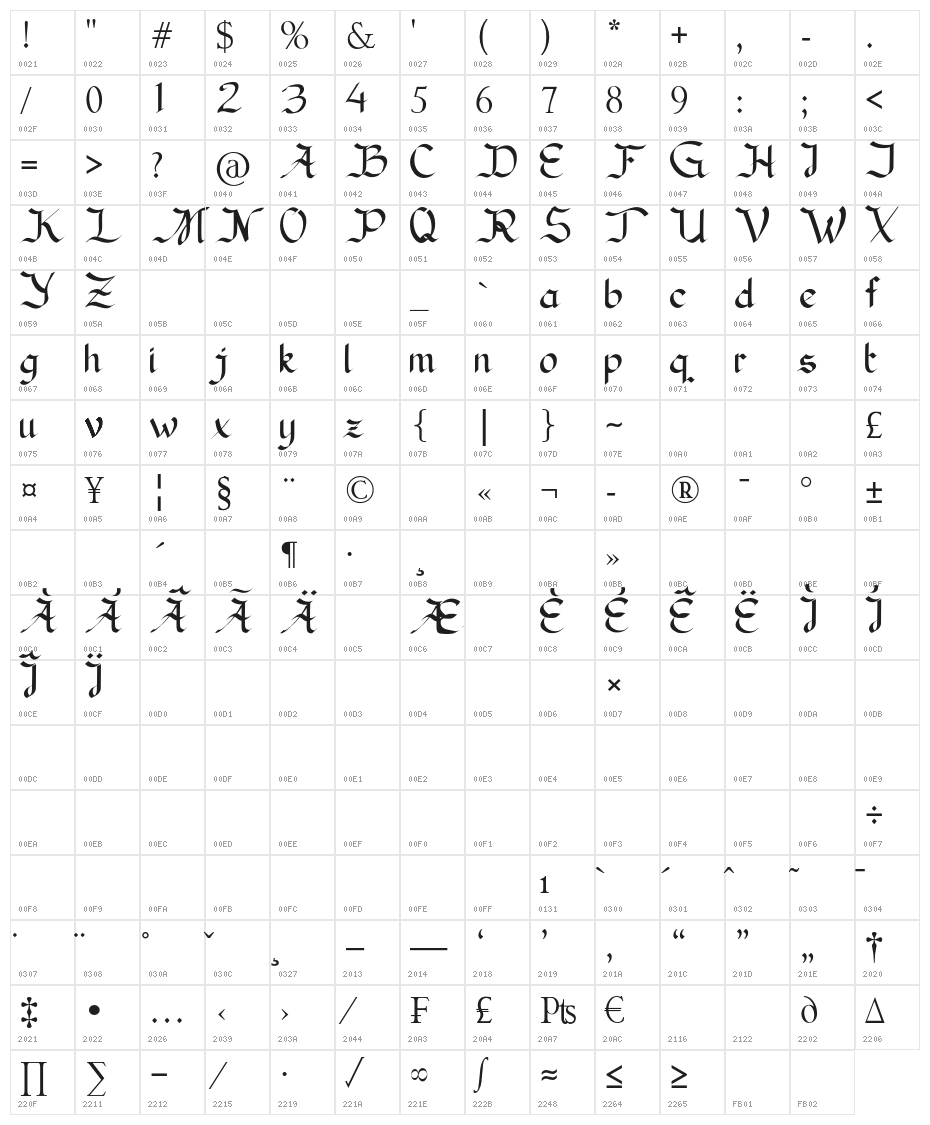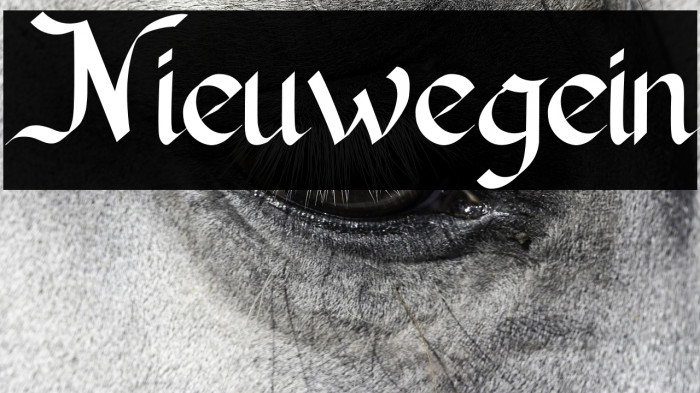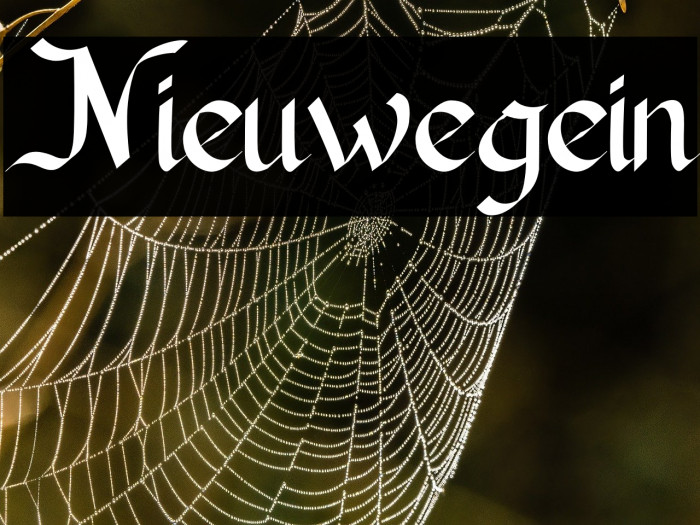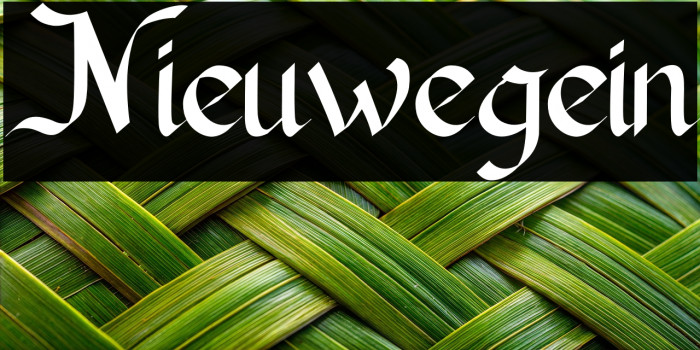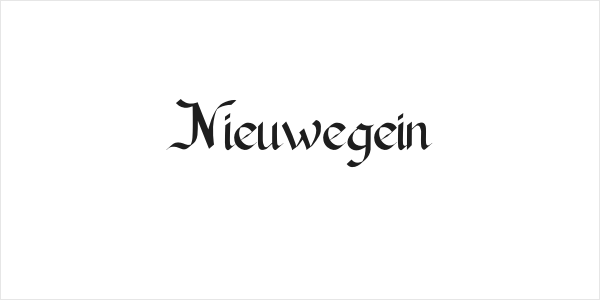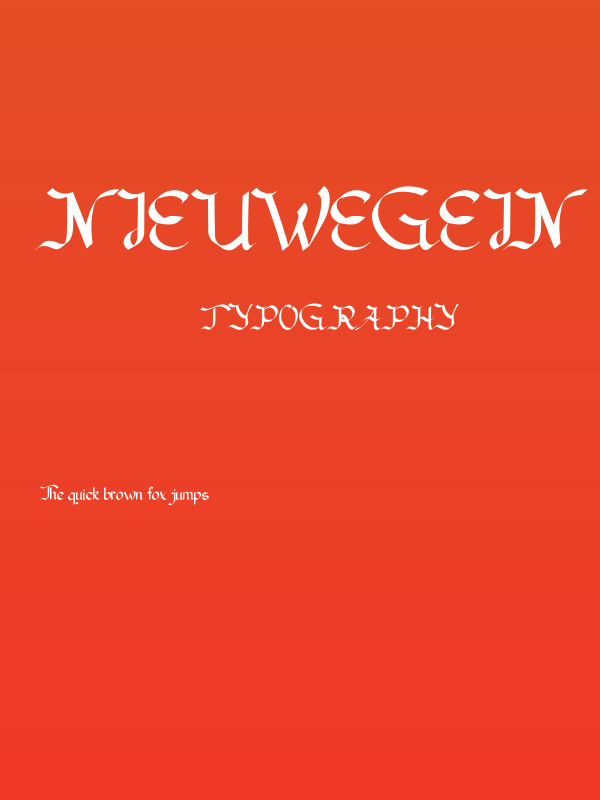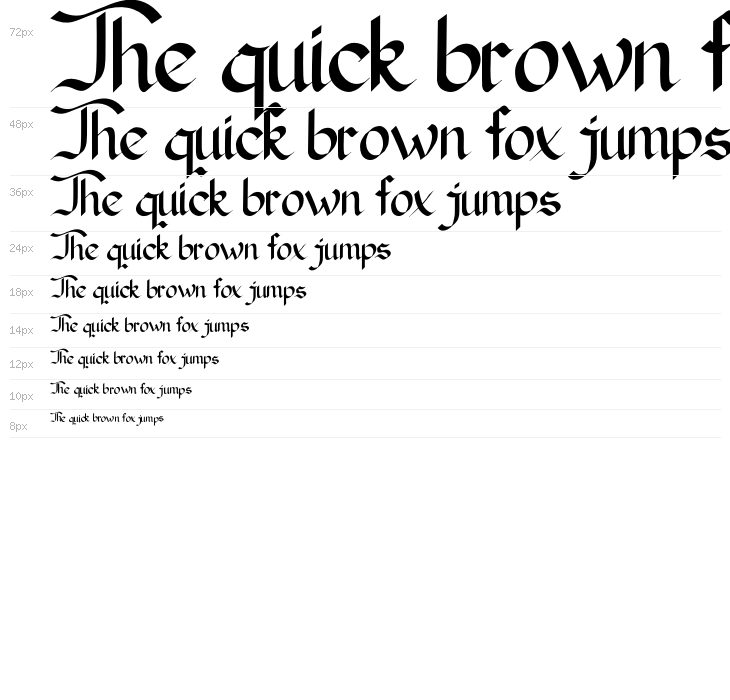
Nieuwegein Font
Nieuwegein Description
This font exhibits a striking and elegant design, characterized by its sharp, angular strokes and a calligraphic flair. The uppercase letters feature a distinct, flowing style with pointed serifs, giving them a dramatic and sophisticated appearance. The lowercase letters maintain a consistent style, with smooth curves and sharp edges that enhance readability while retaining an artistic touch. The numerals are bold and dynamic, matching the overall aesthetic of the alphabet. Special characters are crafted with the same attention to detail, ensuring a cohesive look across all elements. This font's unique style makes it suitable for projects that require a touch of elegance and creativity.
Use CaseHeadlines, Logos, Invitations
Proposed ProjectsIdeal for wedding invitations, luxury branding, artistic posters, and editorial design.